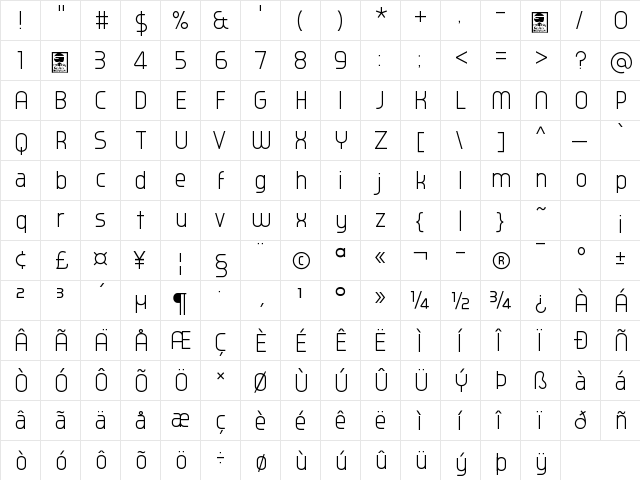
Typo Oval Light Demo Regular
| Foundry | StudioTypo |
| Designer | Mehmet Abac |
Design Context for Typo Oval Light Demo Typeface
Typo Oval Light Demo is a composed and adaptable typeface that performs quietly and consistently across a wide range of design contexts. Its slender proportions lend an understated elegance to any composition.